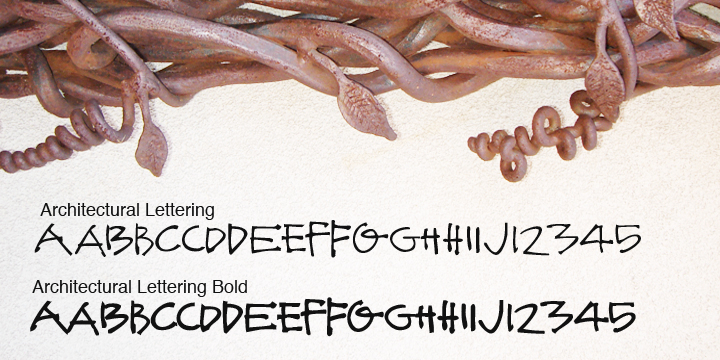
ARCHITECTURAL LETTERING
Architectural Lettering is a hand display font family. This typeface has two styles and was published by Outside the Line.
This font is for architects everywhere.
This font is for architects everywhere. This all cap font was created for use with CAD programs. It gives the hand lettered look of old to computer generated blueprints. It can be found in the book “Indie Fonts 3, a Compendium of Digital Type from Independent Foundries”.